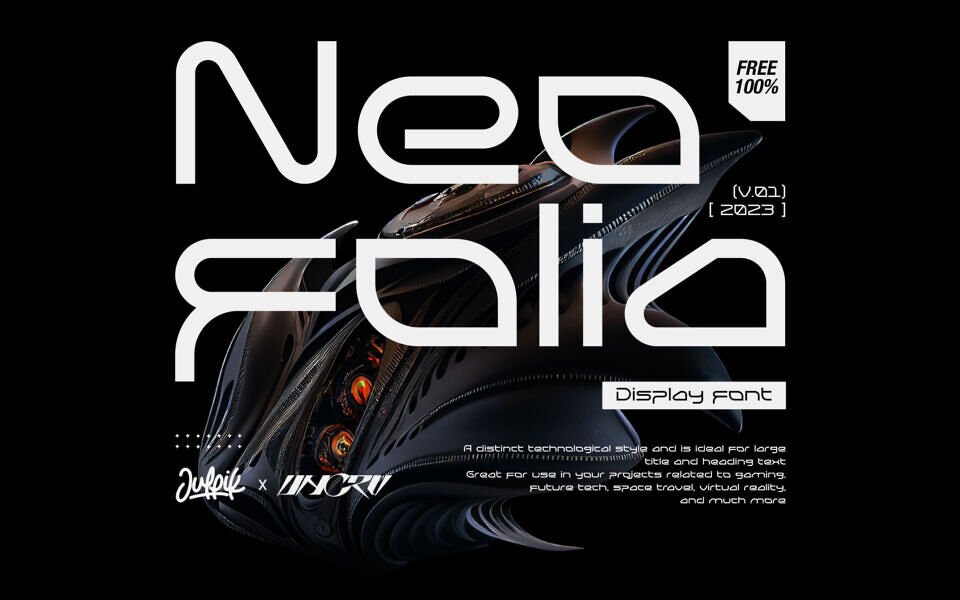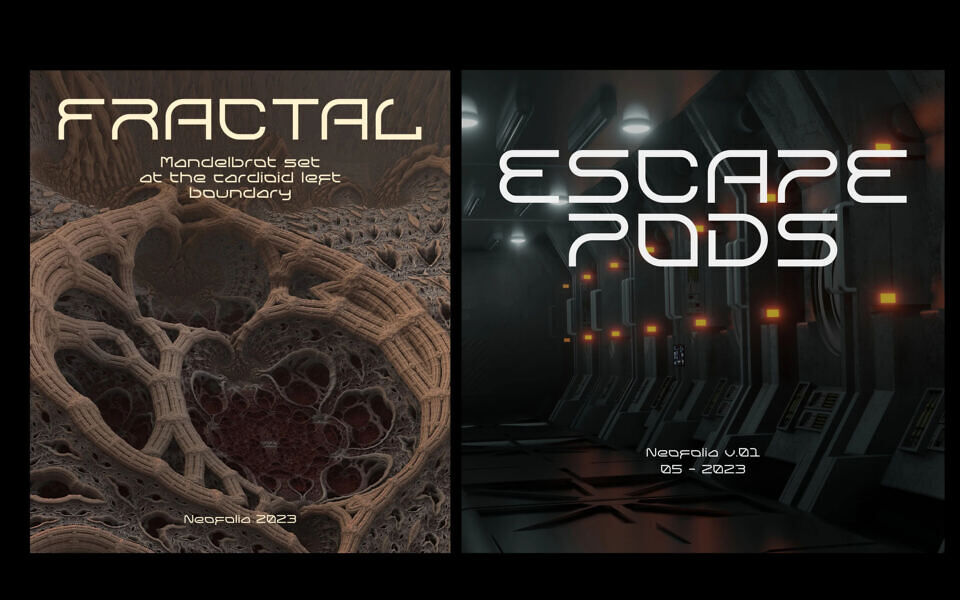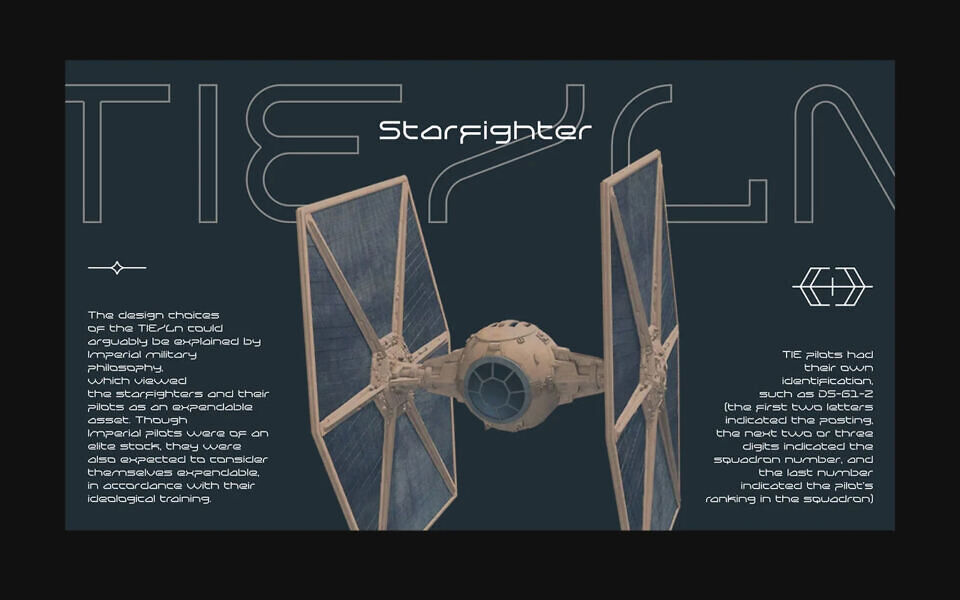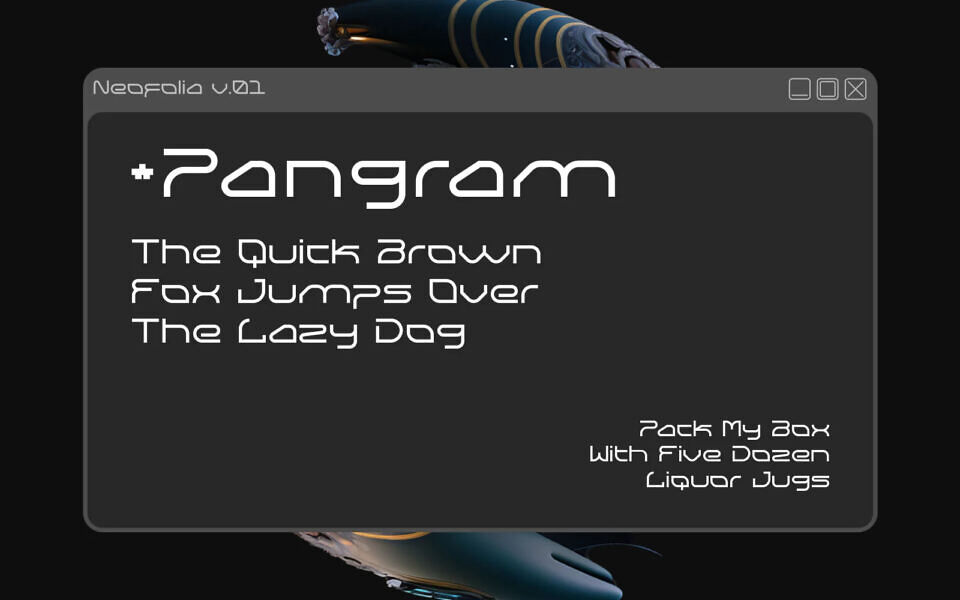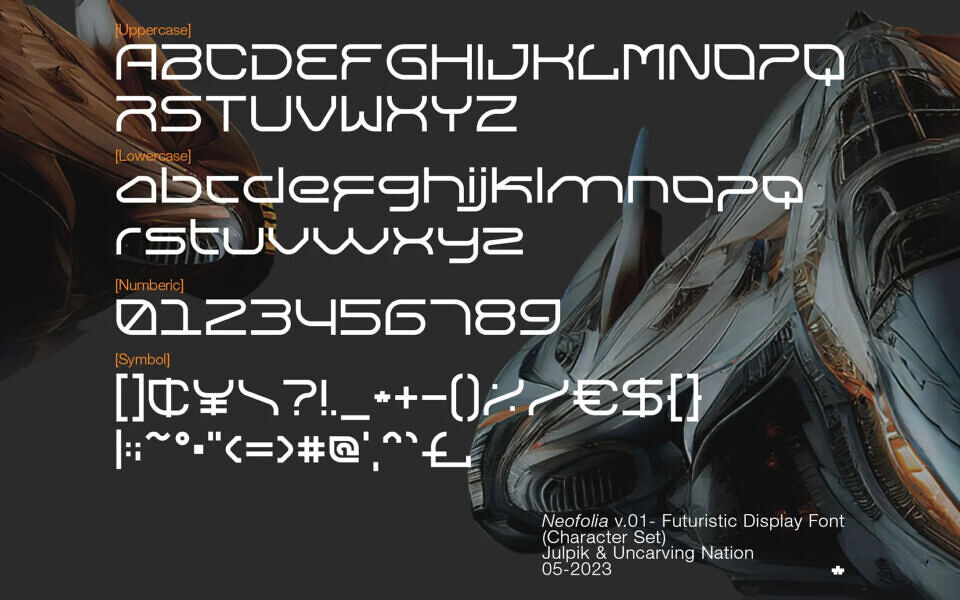
Neofolia Font
Neofolia is a distinctive display font with a strong technological and futuristic aesthetic, designed to stand out in large titles and headings. Its sharp, digital-inspired forms evoke themes of innovation, gaming, and sci-fi environments.
Perfect for projects related to virtual reality, space, and modern tech, it delivers a bold visual impact while maintaining a clean, structured look ideal for attention-grabbing designs.